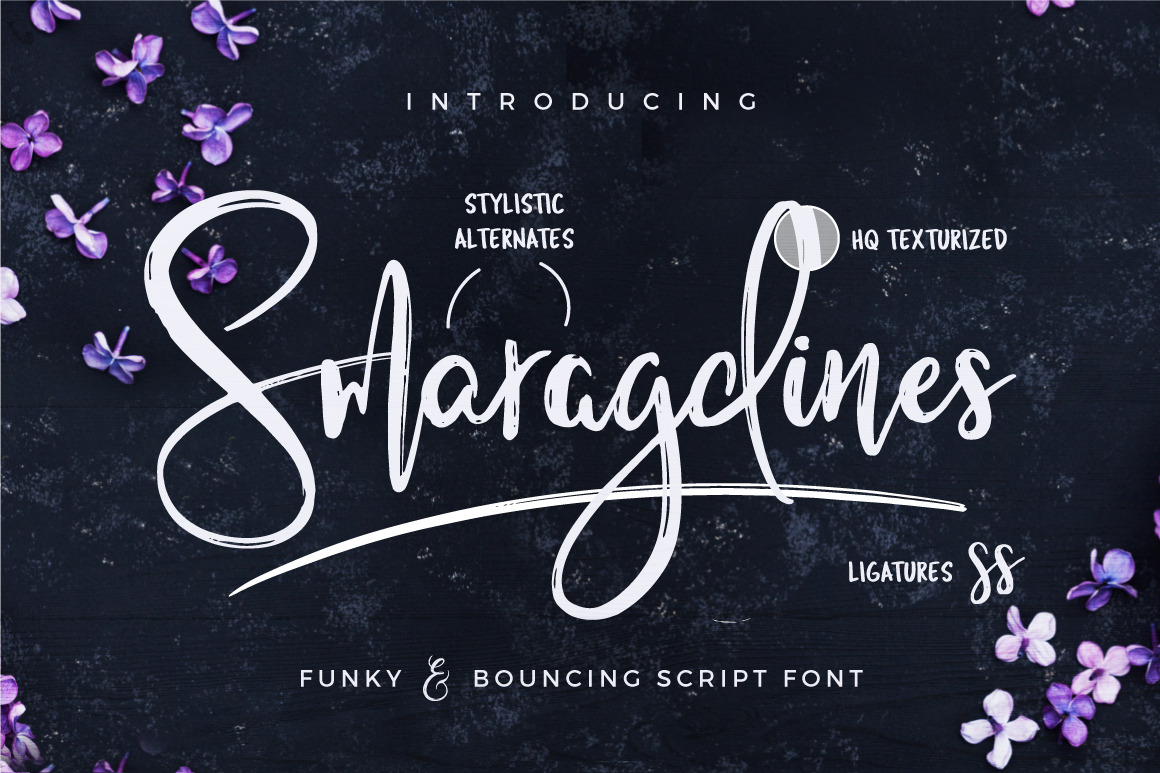
Smaragdines Font + Extras
I'm happy to introduce you to my latest script font that I've carefully handwritten in rough, bouncy and funky style! It gives your design that modern, but personal look that will make your packaging designs, logos and text overlays look astonishing.
Smaragdines includes:
1. Smaragdines - Handwritten upper and lowercase characters, numerals, punctuations and a wide language support. Extra ligatures for more complex letter-combinations like tt and ll. Including both, OTF and TTF filetypes.
2. Smaragdines Alternates - Full alternates for upper and lowercase characters to make your design look more handwritten. Access alternates either via Glyphs Panel (OTF) or individual alt font (OTF, TTF).
3. Smaragdines Swashes - 26 underline swashes to give that beautiful extra punch to your text. Use a-z letters of this font to use them. Includes both, OTF and TTF filetypes.